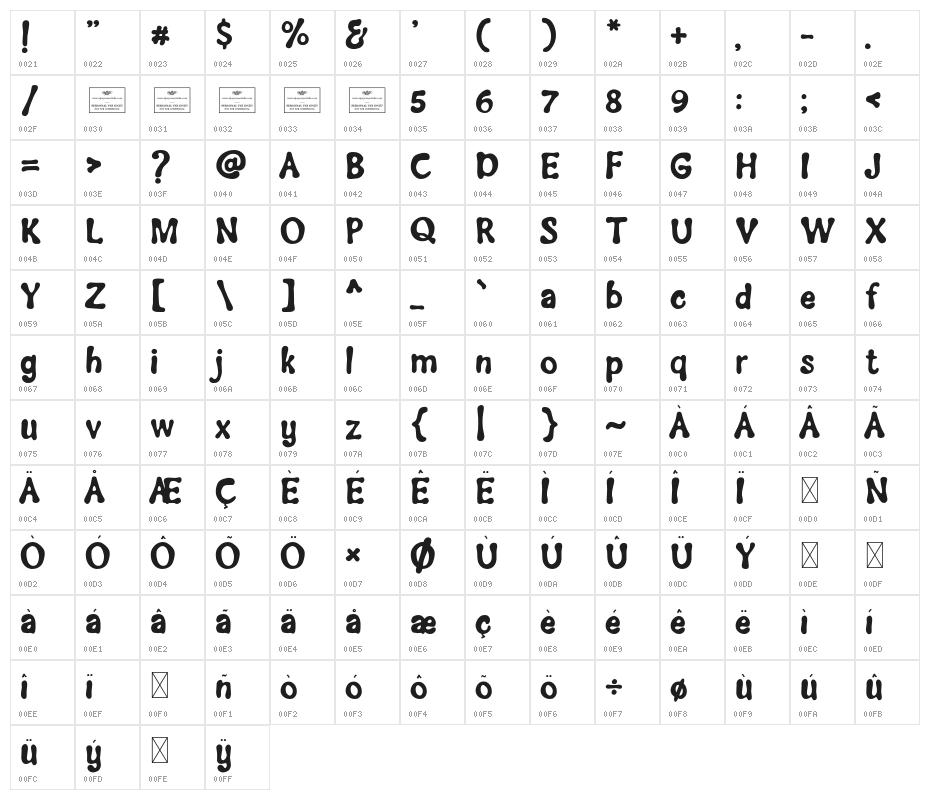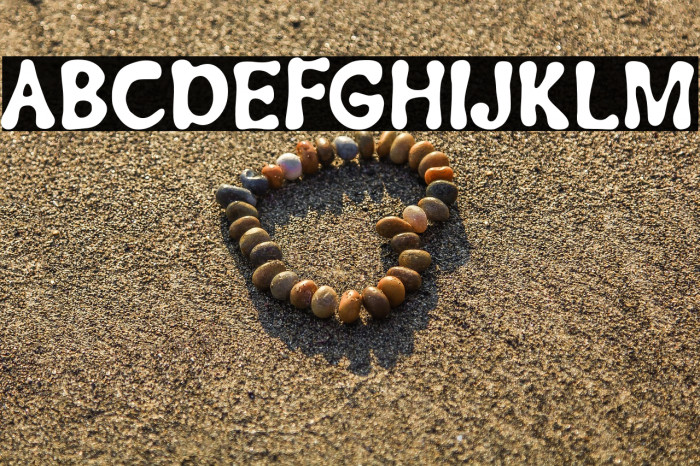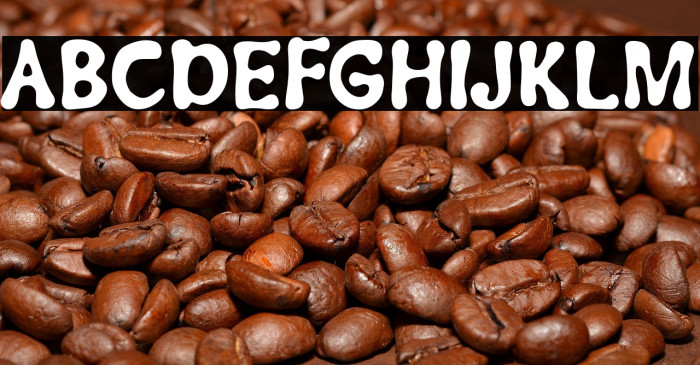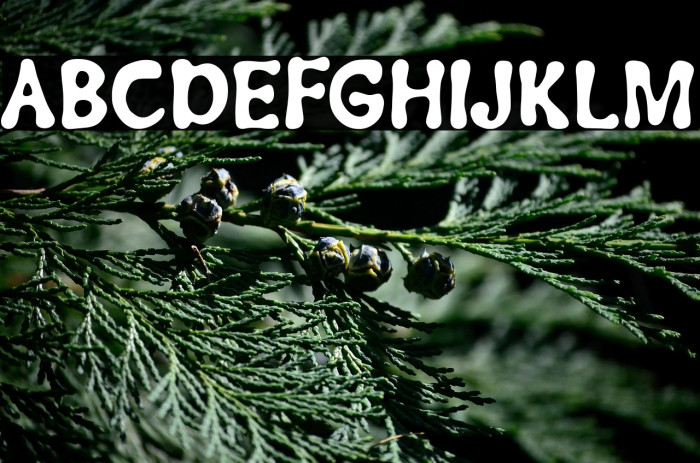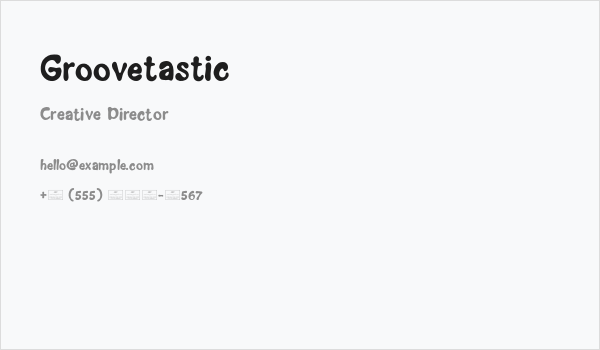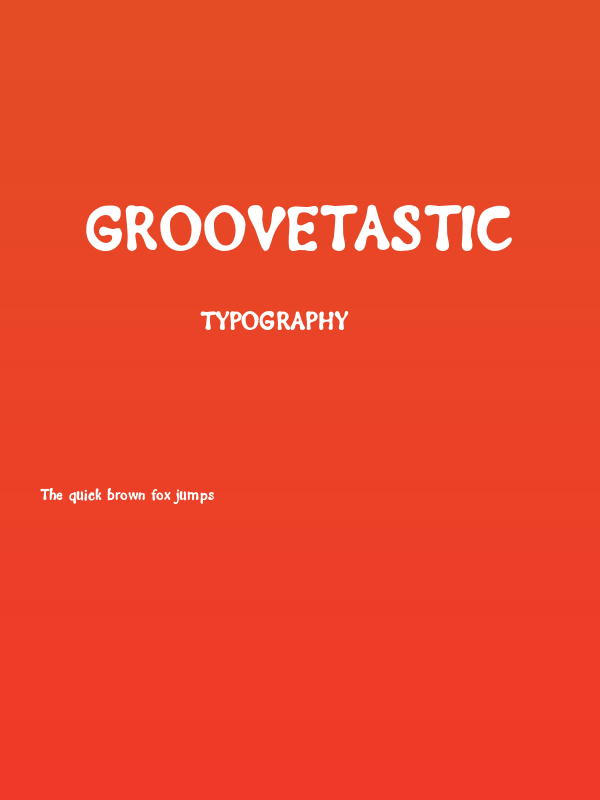
Groovetastic Font
Groovetastic Description
This font exudes a playful and retro vibe, characterized by its bold, rounded, and slightly irregular letterforms. The strokes are thick and consistent, giving it a strong presence. The letters have a whimsical, almost cartoonish quality, making it ideal for designs that aim to capture a sense of fun and nostalgia. The overall appearance is reminiscent of the 1960s and 70s design aesthetics, with a groovy, laid-back feel. The characters are well-spaced, ensuring readability while maintaining a casual and relaxed look.
| Proposed Projects | Ideal for retro-themed posters, children's book covers, playful branding, and event invitations. |